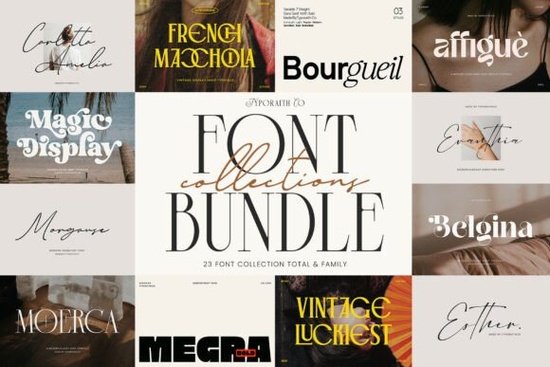
Designers, crafters, and small business owners often look for high-quality fonts that can bring their creative projects to life. The Collection Bundle Font is a great option for those seeking a versatile set of typefaces that can be used across various design needs. This bundle includes 23 fonts, each carefully selected to offer a range of styles from modern serif to elegant script. Whether you're working on a logo, social media graphic, or packaging design, this collection has something to offer.
The Collection Bundle Font is ideal for anyone who wants to add a professional touch to their work without the hassle of searching for individual fonts. It combines different styles, including vintage, editorial, and contemporary, making it suitable for a wide range of applications. From wedding invitations to brand identities, these fonts can help you create visually appealing designs with ease.
What Makes This Font Bundle Stand Out?
One of the key advantages of the Collection Bundle Font is its variety. It includes modern serif fonts that give a classic feel, clean sans serif options for a minimalist look, and elegant signature scripts for a more personal touch. This mix allows designers to experiment with different aesthetics while maintaining a cohesive style across their projects.
Another benefit is the quality of the fonts. Each typeface in the bundle is designed with attention to detail, ensuring readability and visual appeal. Whether you're working on print materials or digital content, these fonts are built to perform well in different formats and sizes.
How Can You Use These Fonts?
The versatility of the Collection Bundle Font makes it a valuable resource for many creative professionals. For example, if you're a print-on-demand seller, having access to a wide range of fonts can help you create unique designs for t-shirts, mugs, and other products. Similarly, small businesses can use these fonts to develop branding materials that stand out in a competitive market.
Why Choose This Bundle?
If you're looking for a reliable and flexible font collection, the Collection Bundle Font is worth considering. It offers a balanced mix of styles that can adapt to different design requirements. The inclusion of both traditional and modern fonts ensures that there's something for every project, whether it's formal, casual, or artistic.